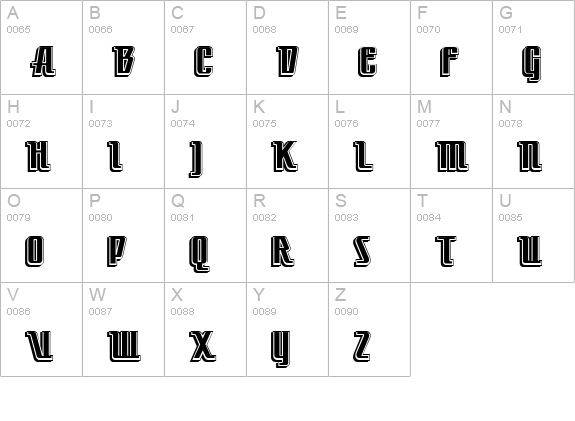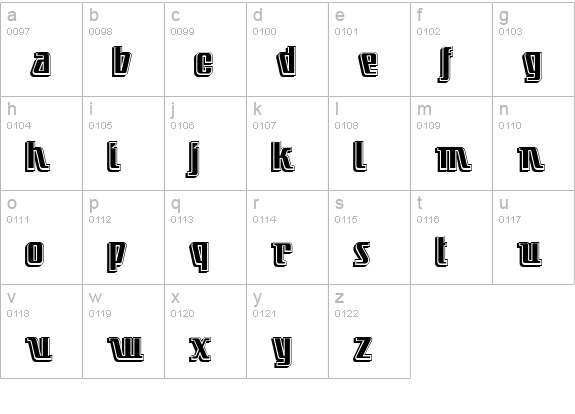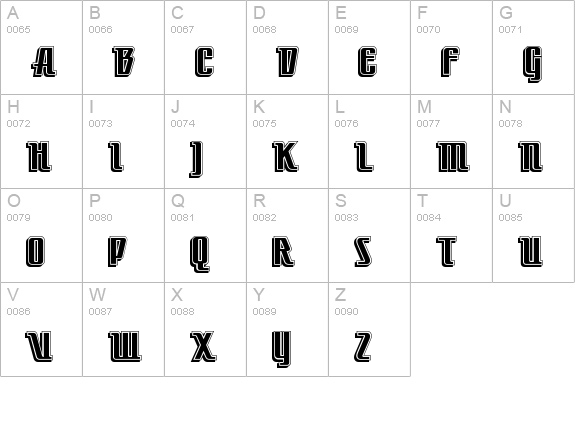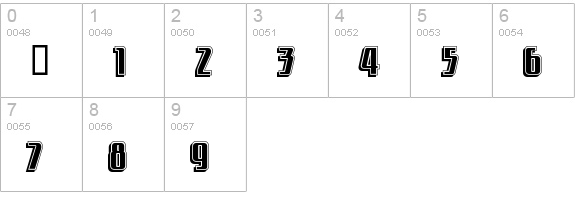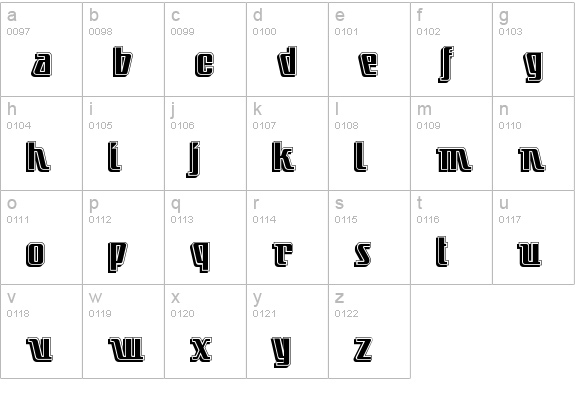
LittleDeuceCoupe Font Details
LittleDeuceCoupe font is a stylish and modern typeface that exudes a sense of creativity and sophistication. With its sleek lines and elegant curves, this font is perfect for a wide range of design projects, from branding to social media graphics. The unique blend of classic and contemporary elements makes LittleDeuceCoupe font a versatile choice for any creative endeavor. What's even better is that LittleDeuceCoupe font is available for free download at FontsMarket.com. This means you can easily access this beautiful font and use it in your projects without any cost. Don't miss out on the opportunity to enhance your designs with the timeless charm of LittleDeuceCoupe font. Download it now and let your creativity soar!